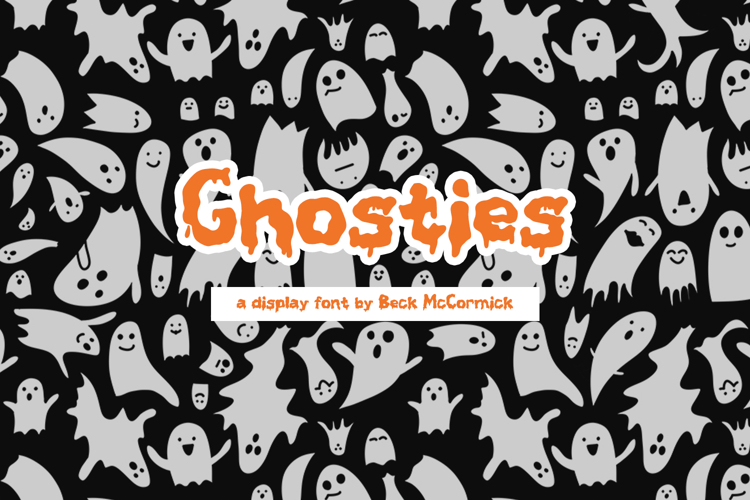
Ghosties Sans
Introducing Ghosties, a spooky, drippy font. Ghosties is a fantastic fit for your ghoulish designs. This font is well-suited for Halloween crafting projects with your Cricut or Silhouette machine, and can be used for things like shirts, signs, labels, marketing materials, social media, SVG designs, greeting cards & other print items, and even spooky logos & branding.